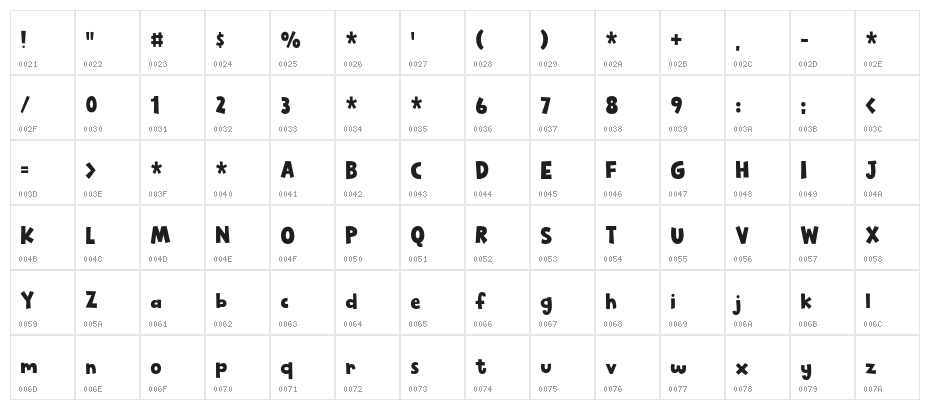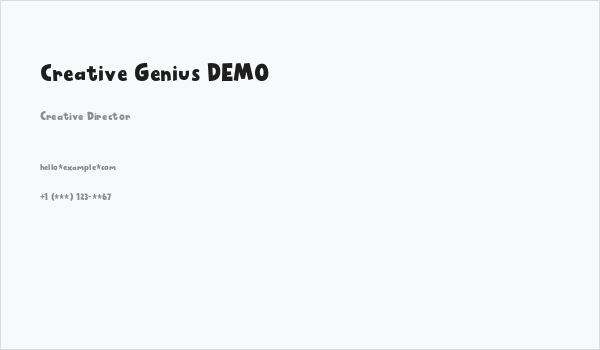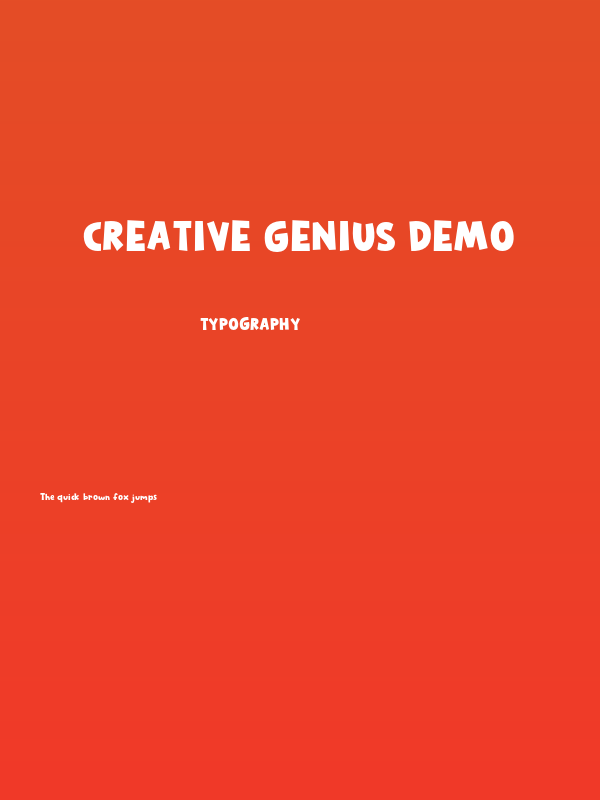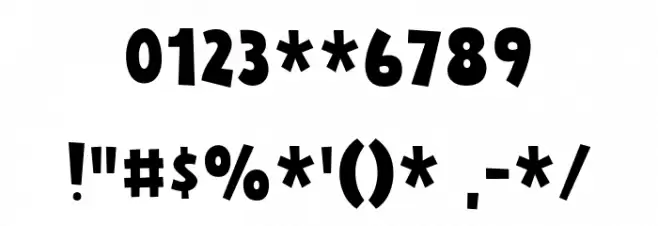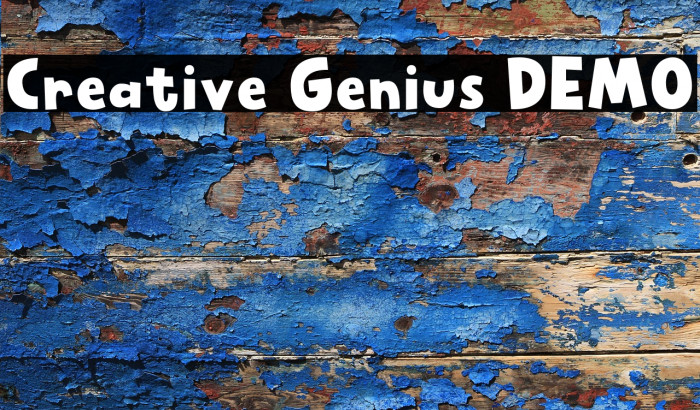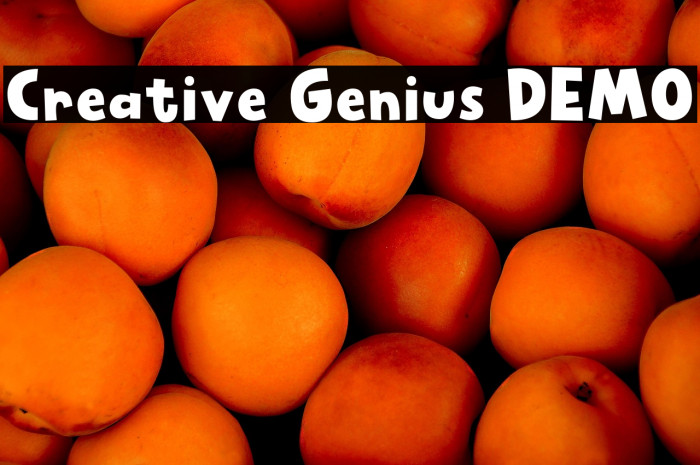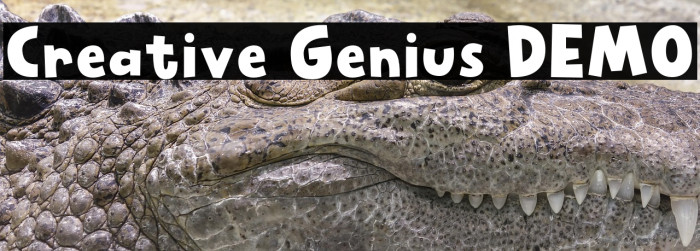
Creative Genius DEMO Font
| 全体的なスタイル | Playful, Creative |
| おすすめプロジェクト | Ideal for children's books, playful branding, posters, and creative projects that require a fun and engaging typeface. |